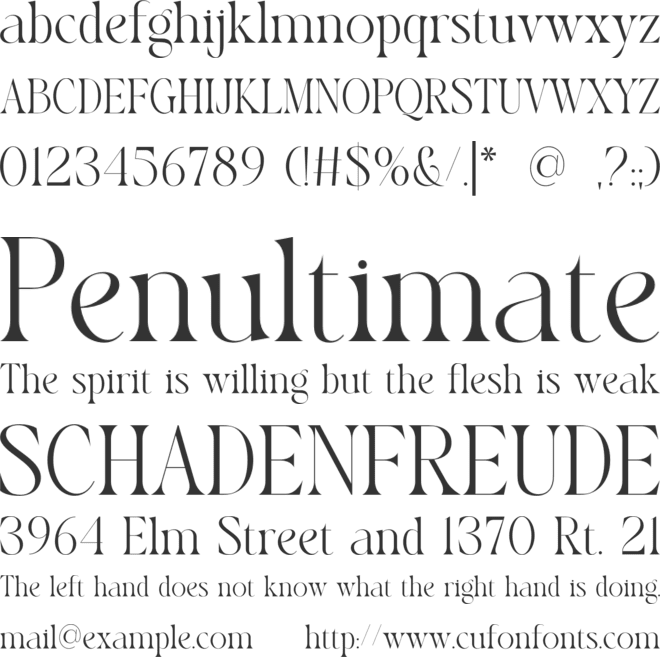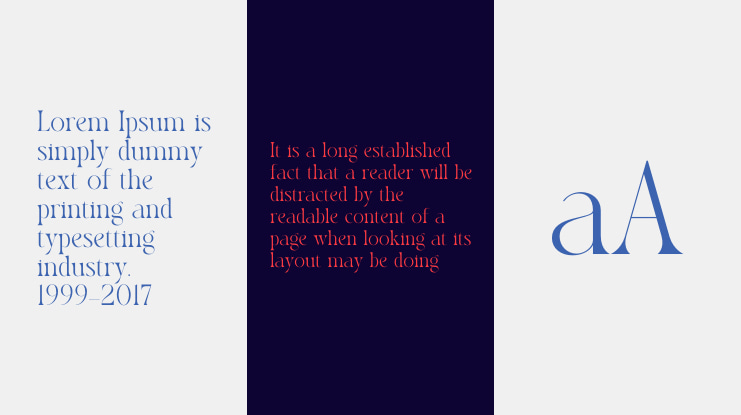
KOSFIA Font
Introducing KOSFIA: with a modern and minimalist serif look, KOSFIA brings a luxurious and clean style to your projects such as websites, modern logos, branding identities, social media quotes, wedding stationery and various other needs!